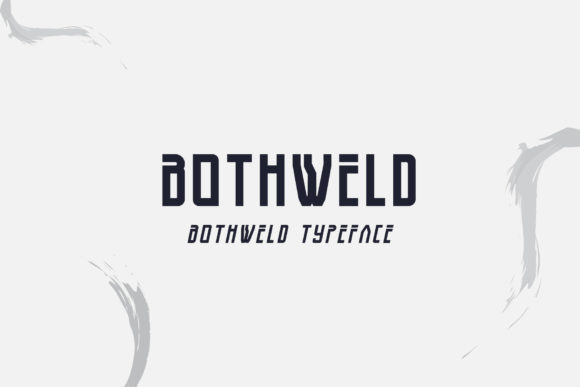
The Designer’s Dilemma: How Bothweld Font Became My Go-To
I still remember the frustration of working on a project, hours spent crafting the perfect design, only to realize that the font I chose just wasn’t cutting it. The client wanted something bold, modern, and eye-catching, but my font selection was falling flat. That’s when I stumbled upon Bothweld Font, and let me tell you, it was a game-changer! 💡
Bothweld Font: A Modern Display Font with Endless Possibilities
Bothweld is a thick lettered and modern display font that has become an incredible asset to my font library. Its versatility knows no bounds, making it perfect for a wide range of creative projects. Whether you’re designing a logo, crafting a social media post, or working on a branding campaign, Bothweld Font is sure to elevate your design.
What I Love About Bothweld Font ✨
• 💥 **Impactful and attention-grabbing**: Bothweld Font is perfect for making a statement. Its bold and thick letters demand attention, making it ideal for headlines, titles, and emphasis text.
• 📈 **Versatile and adaptable**: This font works beautifully across various design platforms, from digital media to print materials.
• 🎨 **Highly customizable**: With OpenType features and glyphs, you can experiment with different styles and alternates to make your design truly unique.
• 👍 **Easy to read**: Despite its boldness, Bothweld Font remains surprisingly legible, even at smaller sizes.
• ⚠️ **Limited use for body text**: Due to its bold nature, Bothweld Font is best suited for display text. It may not be the best choice for lengthy paragraphs or body text.
• 🤔 **Some characters may require adjustment**: Depending on the context, certain characters (like the lowercase “l” or “i”) may require manual kerning for optimal spacing.
The Story Behind Bothweld Font: Designer Inspiration
Bothweld Font was designed with the goal of creating a bold, modern, and highly versatile display font. Inspired by the urban landscape and industrial typography, the designer aimed to craft a font that would be both visually striking and highly legible.
Q: What type of projects is Bothweld Font best suited for?
A: Bothweld Font is perfect for a wide range of creative projects, including logos, branding campaigns, social media posts, and print materials.
Q: Can I use Bothweld Font for body text?
A: While Bothweld Font is highly legible, its bold nature makes it better suited for display text. For lengthy paragraphs or body text, a lighter font might be more suitable.
Q: Does Bothweld Font come with OpenType features?
A: Yes, Bothweld Font includes OpenType features, such as stylistic alternates and glyphs, which can be accessed on compatible design platforms.
Q: Is Bothweld Font suitable for digital and print media?
A: Absolutely! Bothweld Font works beautifully across various design platforms, from digital media to print materials.